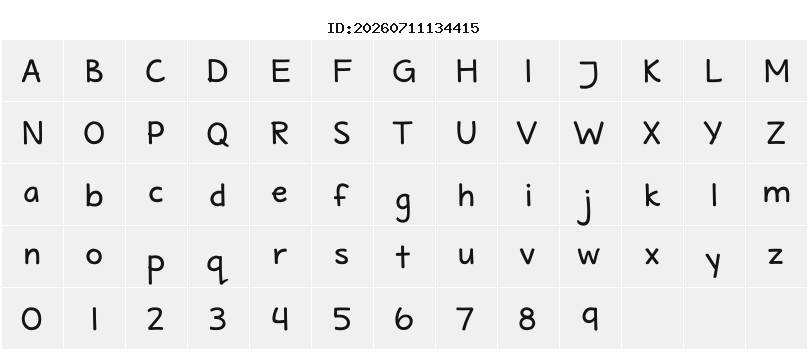
Maritime Tropical Neue Preview
• Font Name: Maritime Tropical Neue
• Full Font Name: Maritime Tropical Neue Bold
About Maritime Tropical Neue.ttf
Maritime Tropical Neue.ttf is a modern, elegant sans-serif font designed for ultimate readability and visual harmony. Perfect for branding, headlines, web design, and print materials.